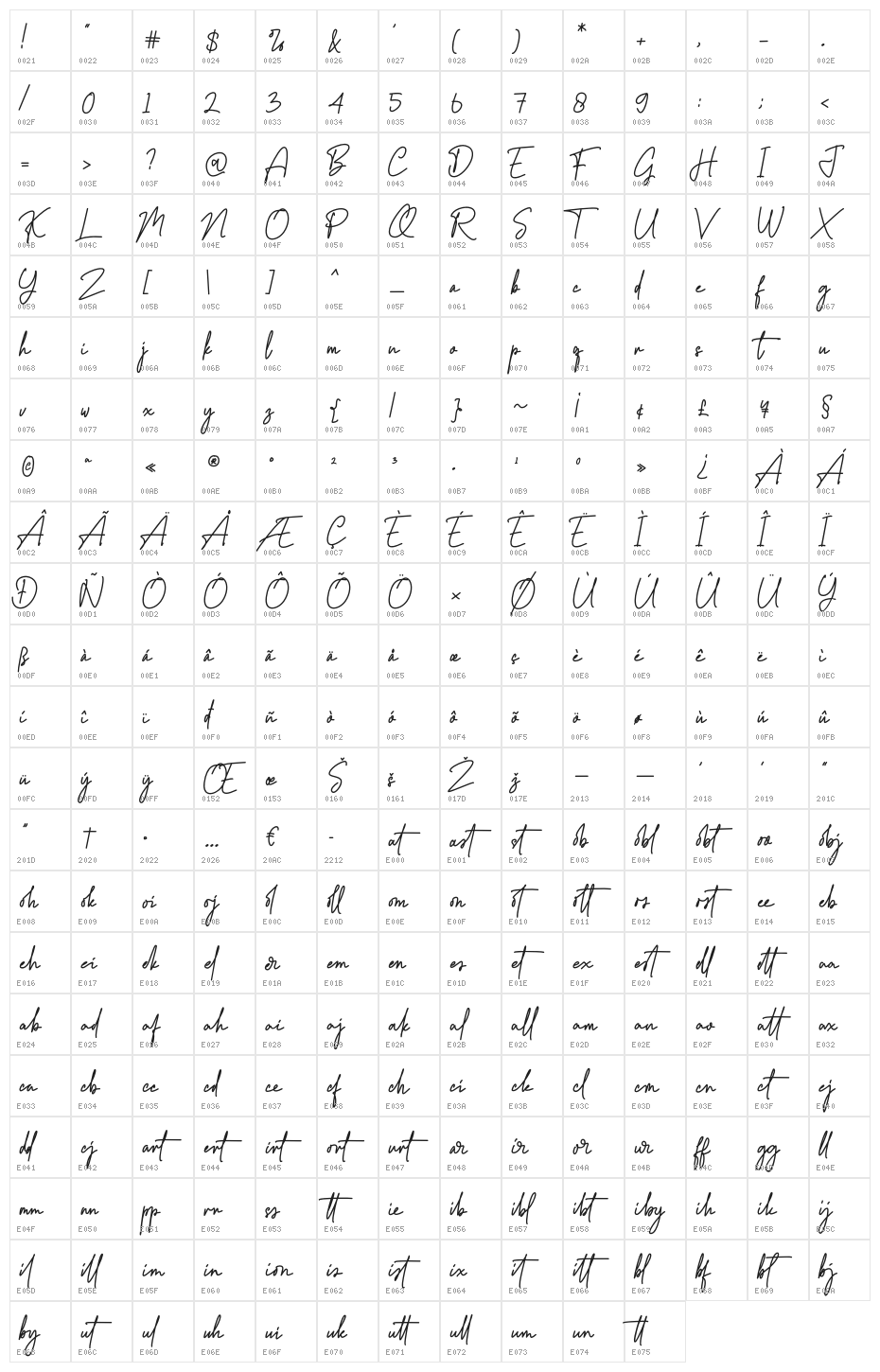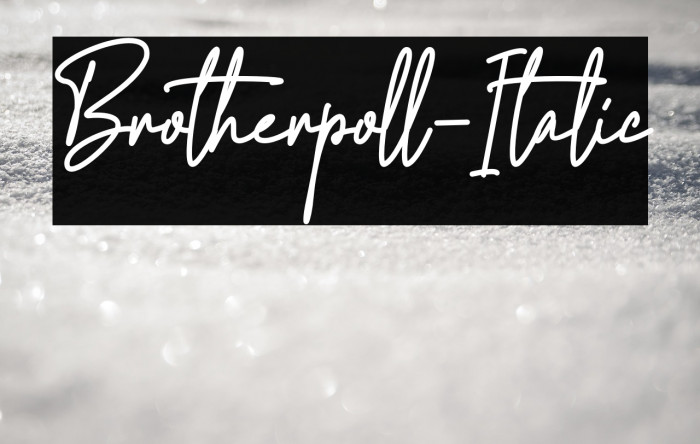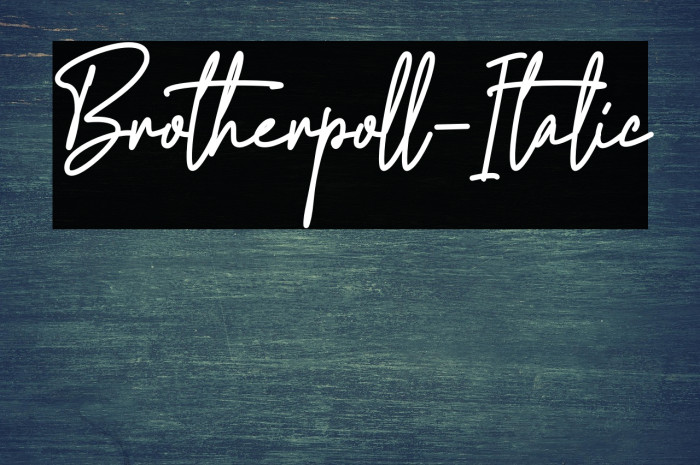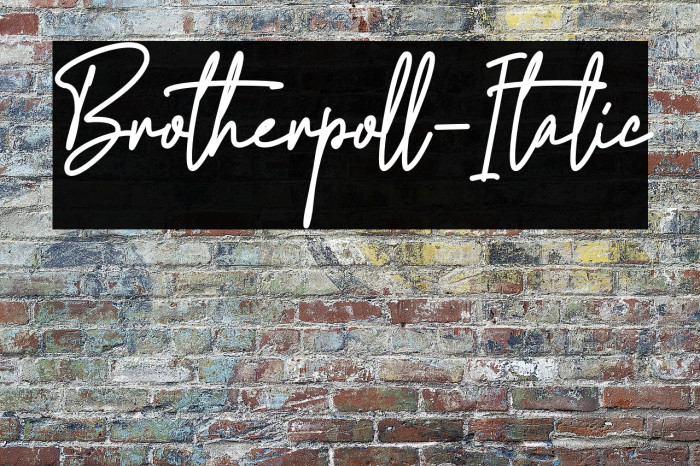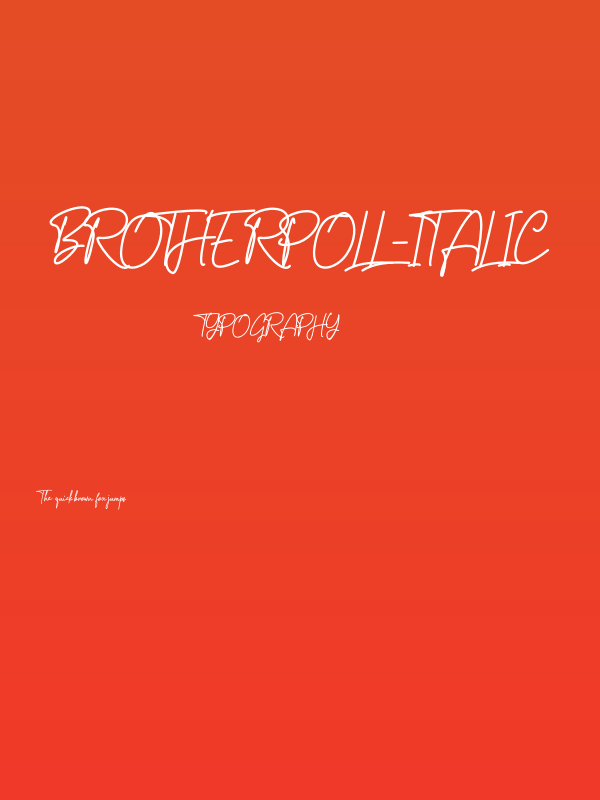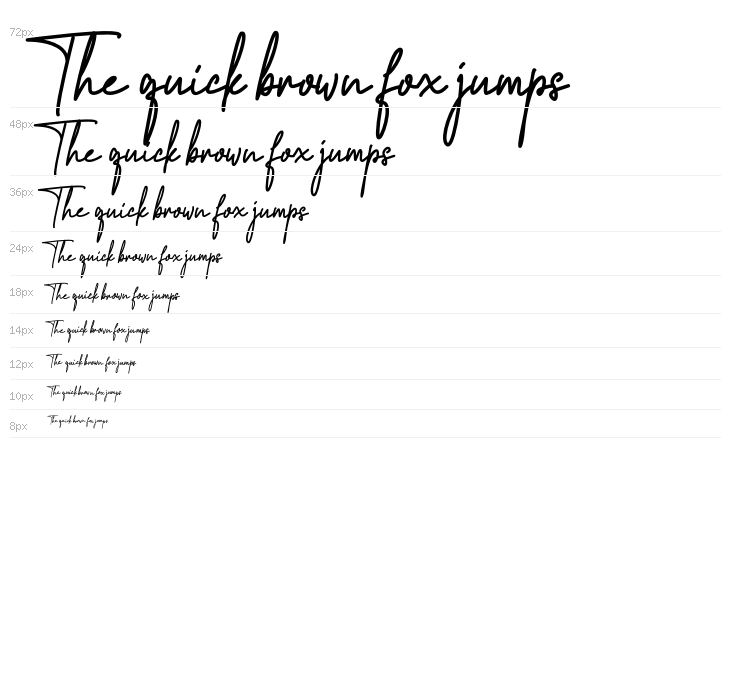
Brotherpoll-Italic Font
Brotherpoll-Italic Description
A flowing, cursive script font with a handwritten style, featuring smooth, connected letters and a casual, personal touch.
| Overall Style | Casual, Personal |
| Use Case | Logos, Headlines, Personal notes |
| Proposed Projects | Invitations, greeting cards, personal branding. |